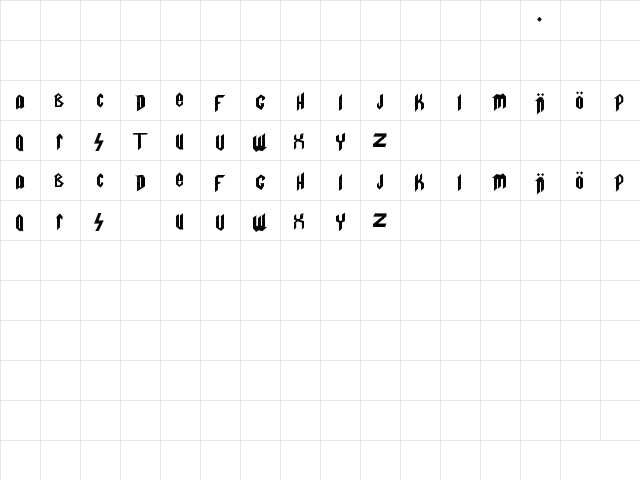
Spinal T. FanBoy Regular
Design Context for Spinal T. FanBoy Typeface
Spinal T. FanBoy is a composed and adaptable typeface that performs quietly and consistently across a wide range of design contexts.